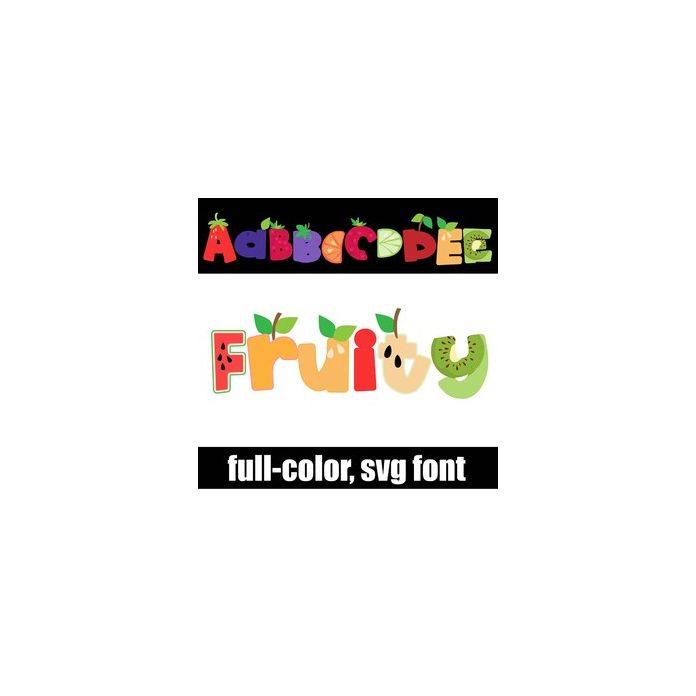
This full-color font features lettering that looks like fruit. There is an alt case w/ additional colors you can access through your system or Silhouette's glyph map.